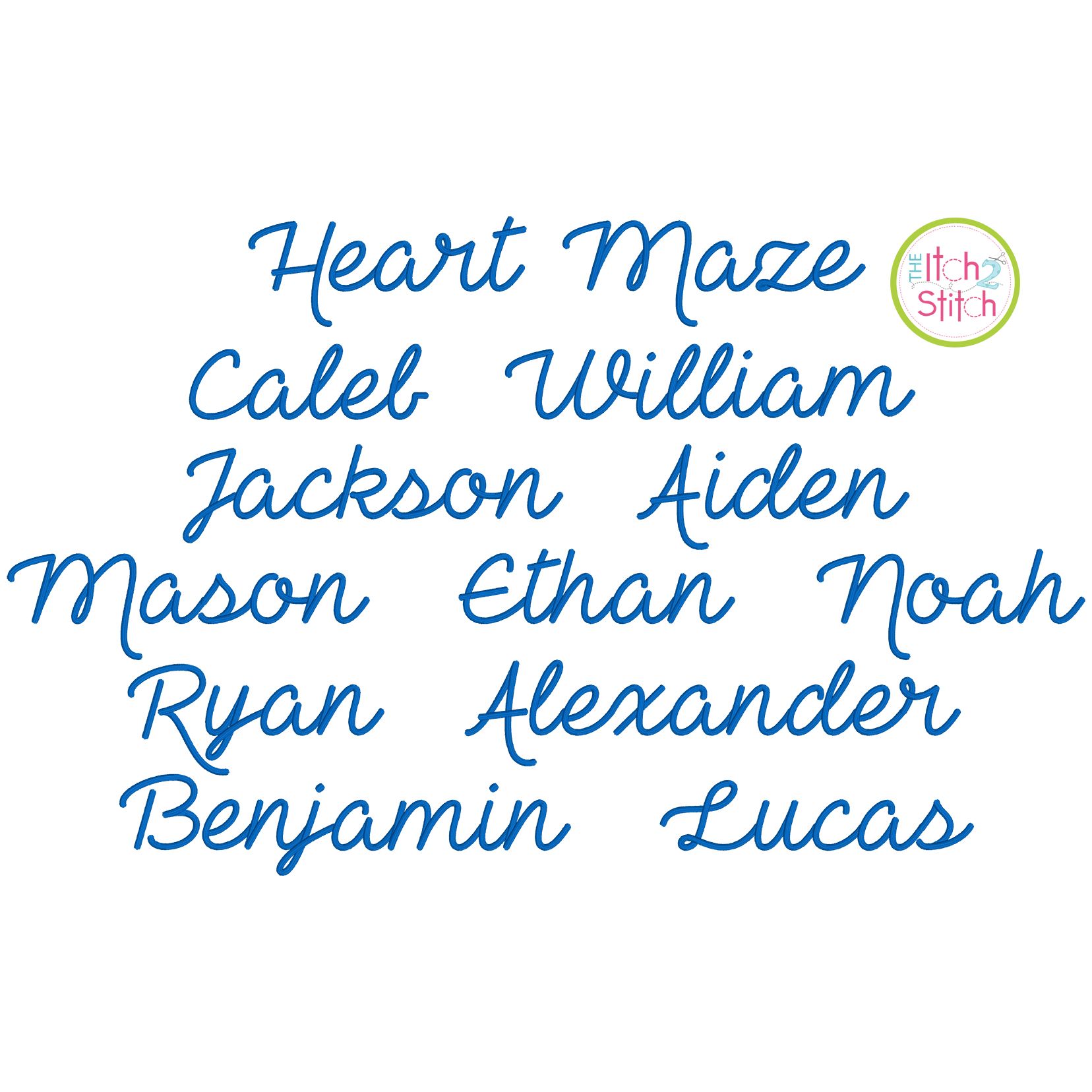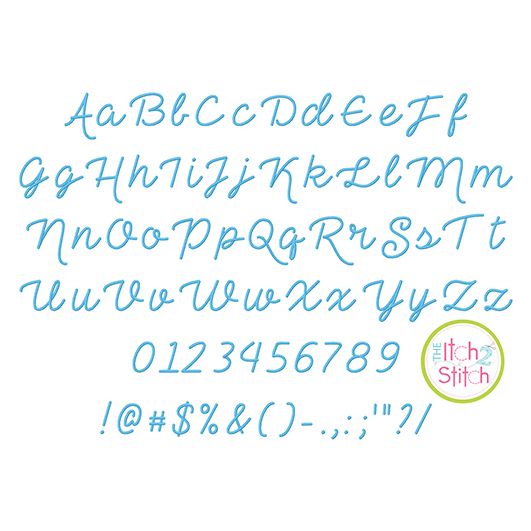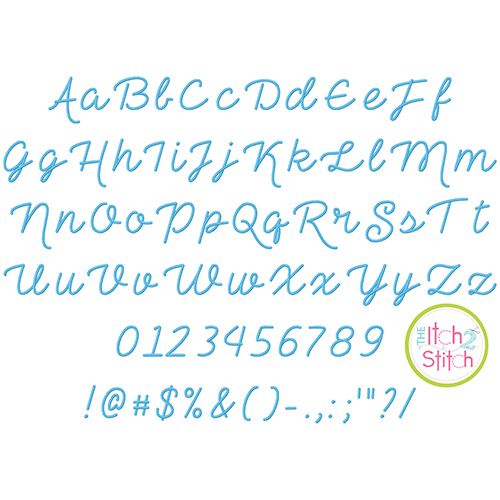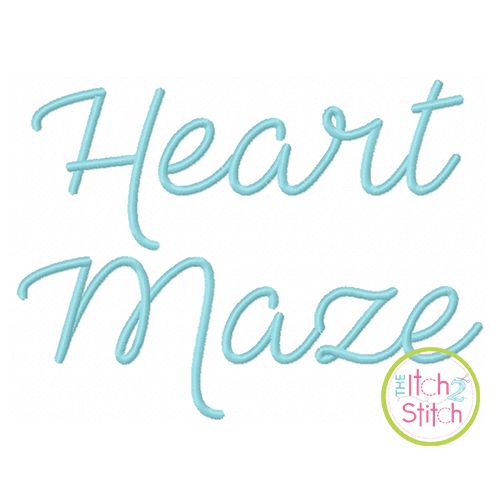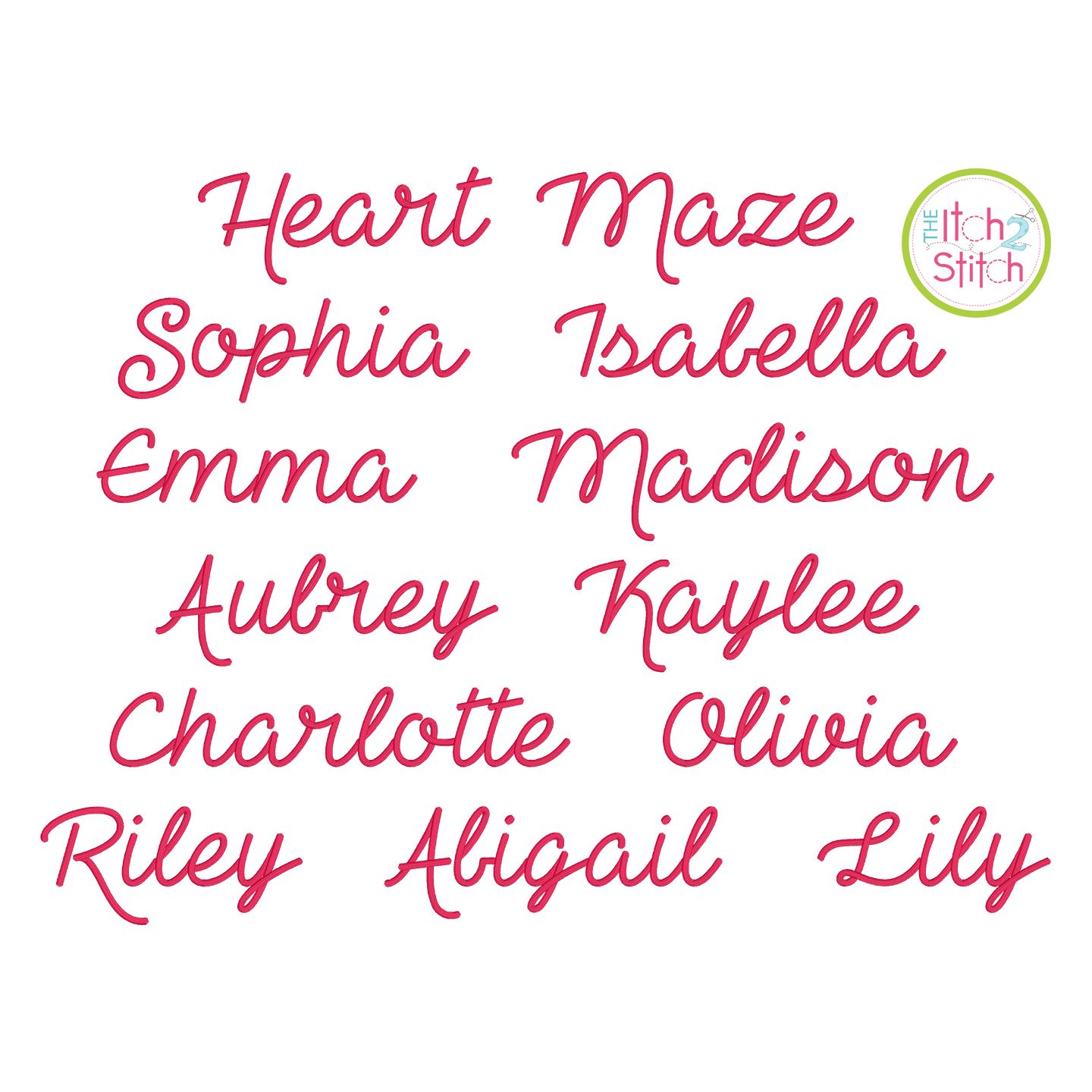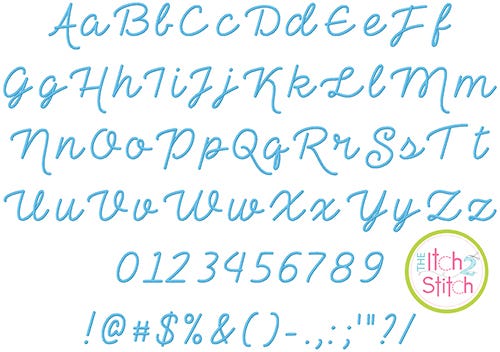
Sizing is based on the capital C, and all other characters are sized proportionally to that. Since many of the capital letters are designed to descend below the baseline, their design height may be taller than the stated size. Consequently, a few capital letters from the 2.5" size and many letters from the 3" size do not fit in a 4x4 hoop; a larger hoop is required.